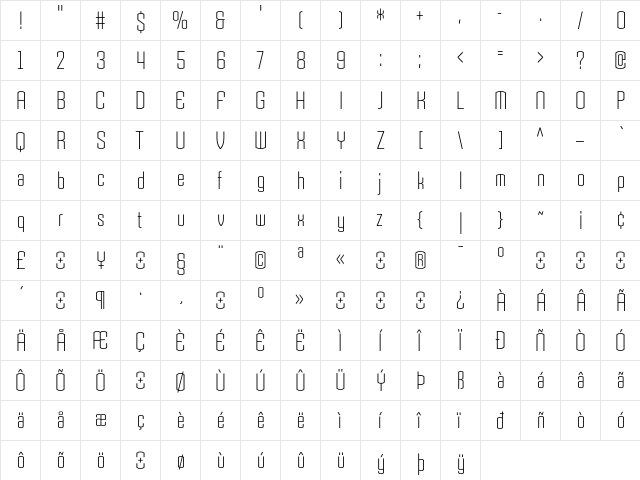
Armada LightCondensed Font Preview
Armada LightCondensed
Armada LightCondensed Font Details
| Style | LightCondensed |
| Copyright | Copr. 1994 Tobias Frere-Jones. Designed by Tobias Frere-Jones. Produced by The Font Bureau, Inc. |
Design Context for Armada Typeface
Armada is a composed and adaptable typeface that performs quietly and consistently across a wide range of design contexts. The delicate stroke weight brings airiness and refinement to layouts. Its narrow stance lets it pack a punch even in space-constrained designs.